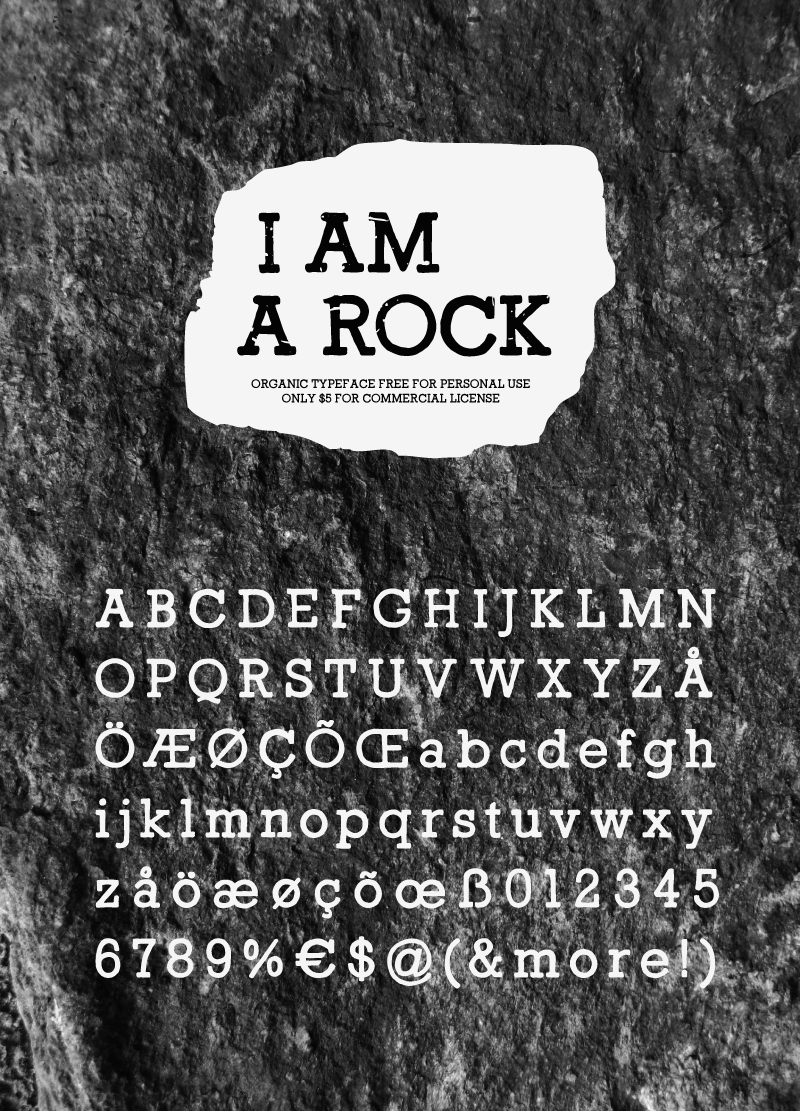
I Am a Rock is a handwritten typeface was made to be used in vintage looking logos, organic headlines and just about anything that needs a handmade feeling in the typography. Please donate $5 or more and get a commercial license for 1-5 users, and if I Am a Rock is made into a PRO version font in the future then you get a copy of that, free of additional charge. I will use the donations to buy FontLab (I'm really, really tired of my crashing old Fontographer). Thanks in advance for you support! |